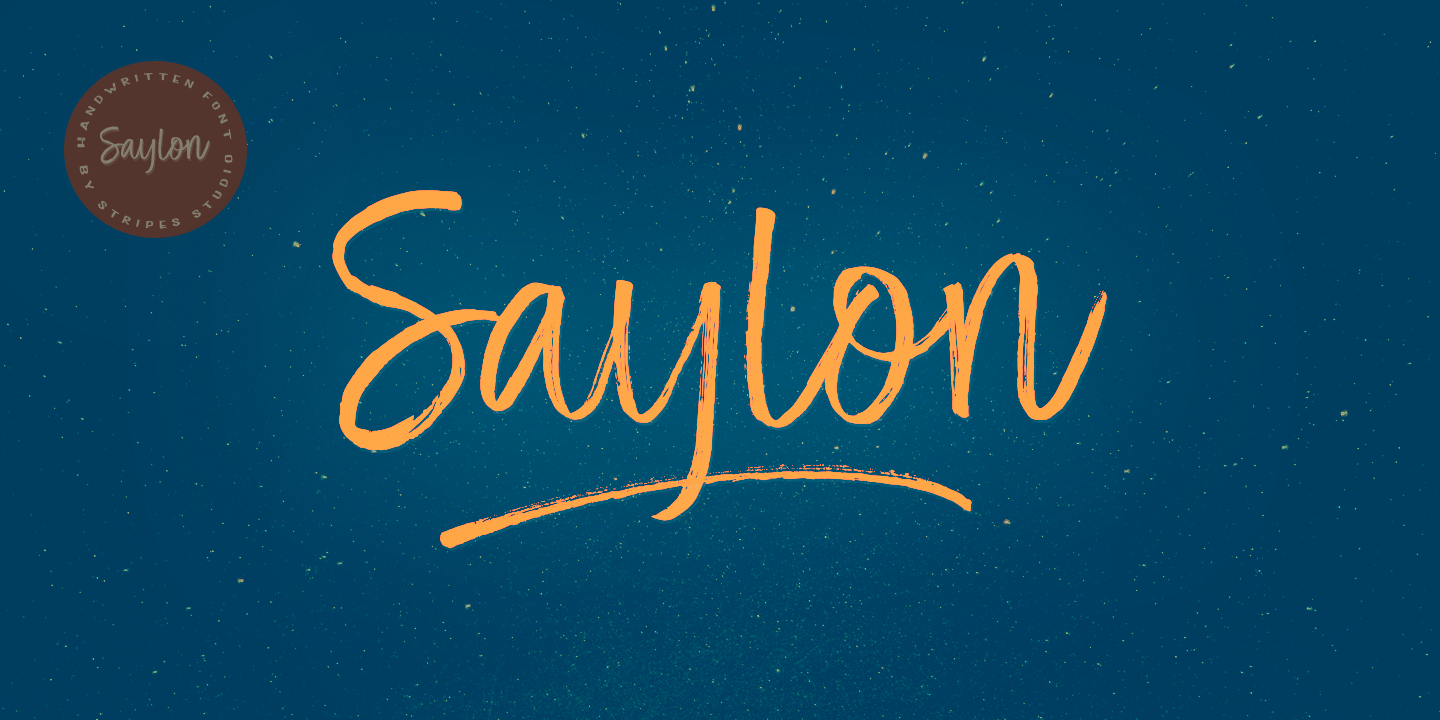
Saylon Brush Font is perfect for street art branding, urban fashion labels, creative agency identity, artistic poster design, graffiti-inspired marketing, contemporary art exhibitions, youth-focused campaigns, trendy restaurant branding, music festival promotions, and dynamic advertising materials. This expressive typeface works exceptionally well for creative agencies, urban lifestyle brands, artistic ventures, and contemporary businesses that want to communicate artistic energy, creative authenticity, and modern street culture in their visual communications.
What makes Saylon Brush Font exciting is its authentic capture of brush painting techniques and street art aesthetics through dynamic typographic expression. The energetically crafted letterforms feature natural brush strokes, organic texture, and artistic character that perfectly captures the spontaneous energy of hand-painted street art and contemporary brush lettering. Each character has been carefully designed with authentic brush dynamics and artistic flair that ensures excellent readability while maintaining distinctive urban appeal. The font's artistic personality makes it ideal for brands that want to communicate creativity, authenticity, and the raw energy of contemporary street art culture.
The Saylon Brush Font family includes multiple artistic variations featuring Light Brush, Regular, Bold Brush, and Heavy Paint styles with additional texture effects and artistic alternates. Each style maintains the font's characteristic brush authenticity while providing different levels of artistic intensity and urban energy. The complete family ensures brand consistency across all materials while giving designers the flexibility to create dynamic layouts that capture the spontaneous energy and artistic freedom of brush lettering and street art aesthetics.
Professional designers and creative industry specialists will appreciate how Saylon Brush Font Free Download transforms projects with authentic artistic appeal and contemporary urban energy. Whether you're designing for creative agencies, urban brands, or artistic campaigns, this font delivers exceptional performance in creating memorable artistic impressions. The brush-inspired character shapes and dynamic styling make it particularly effective for branding, poster design, and marketing materials where creative authenticity matters most.
The versatility of Saylon Brush Font extends across numerous creative and urban design applications. It works exceptionally well in artistic branding, creative advertising, urban fashion, music marketing, and contemporary design campaigns. The font's expressive presence makes it ideal for brands targeting creative professionals, urban audiences, and consumers appreciating authentic artistic expression and street culture.
For designers seeking a font that embodies artistic authenticity with urban energy, Saylon Brush Font represents the perfect creative choice. Its brush-painted appearance suits artistic brands while maintaining excellent functionality across all media. The font's dynamic baseline and brush-inspired proportions create striking visual hierarchies that communicate creative energy and authentic artistic expression.